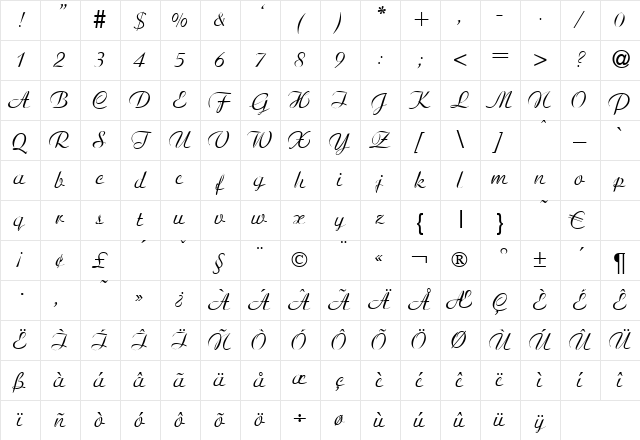
Arioso Normal
Arioso Family
Design Context for Arioso
Arioso is a composed and adaptable typeface that performs quietly and consistently across a wide range of design contexts.